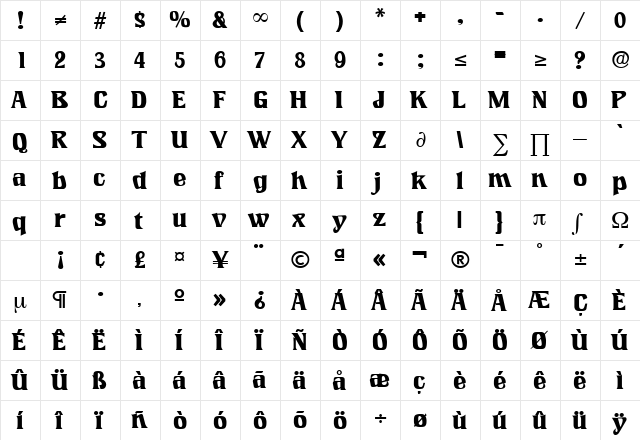
LookingGlass DB Medium Font Preview
LookingGlass DB Medium
LookingGlass DB Medium Font Details
Design Context for LookingGlass DB Typeface
LookingGlass DB takes a measured approach to typography — its balanced proportions and neutral character make it a reliable workhorse for both digital and print work.